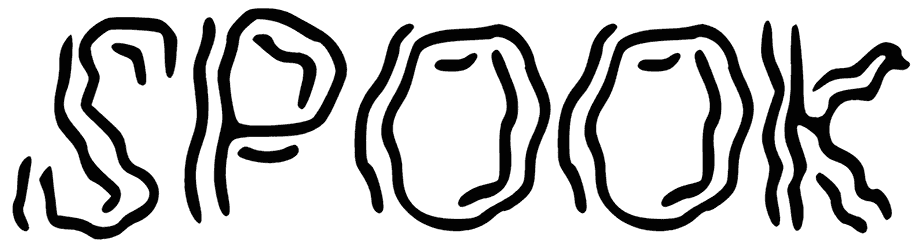
Spook Font
Designed byWill Bertram
Spook gives your business a visual voice that you can use to differentiate yourself for Halloween this year. This wavy font can be used in digital and printed designs and then embedded in posters, greeting cards, and packaging to create a lasting impression using the best methods.
You won’t need to be too creative to work with this horror font, and you can turn the most uncomplicated backgrounds into a unique Halloween design.